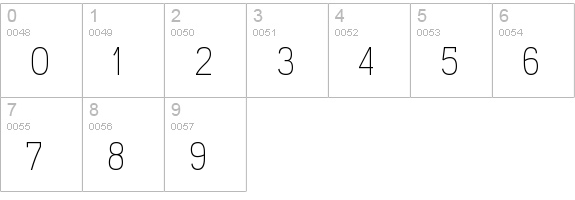
Akazan Lt Font Details
Akazan Lt is a sophisticated and elegant font that exudes a sense of modernity and style. With its sleek lines and subtle curves, this typeface is perfect for adding a touch of sophistication to any design project. The clean and minimalistic design of Akazan Lt makes it versatile and suitable for a wide range of uses, from branding to editorial design. What sets Akazan Lt apart is not just its visual appeal, but also the fact that it is available for free download at FontsMarket.com. This means that you can easily access this stunning font and incorporate it into your projects without any cost. Whether you are a designer looking to elevate your work or a business owner in need of a fresh new look for your branding, Akazan Lt is a fantastic choice that won't break the bank. Download Akazan Lt today and see how it can elevate your designs to the next level.